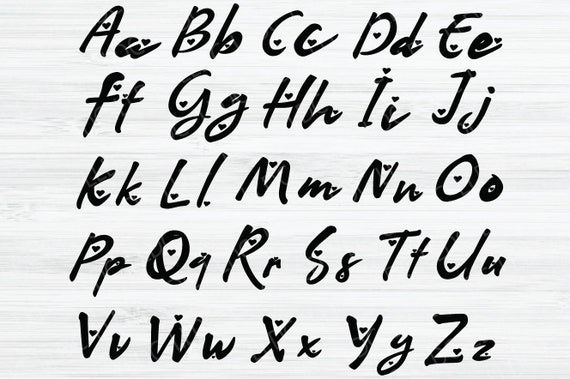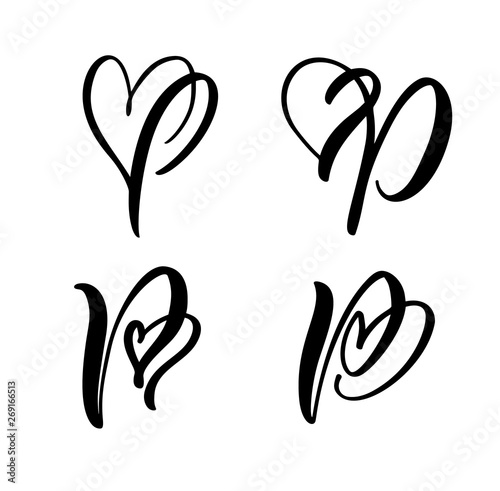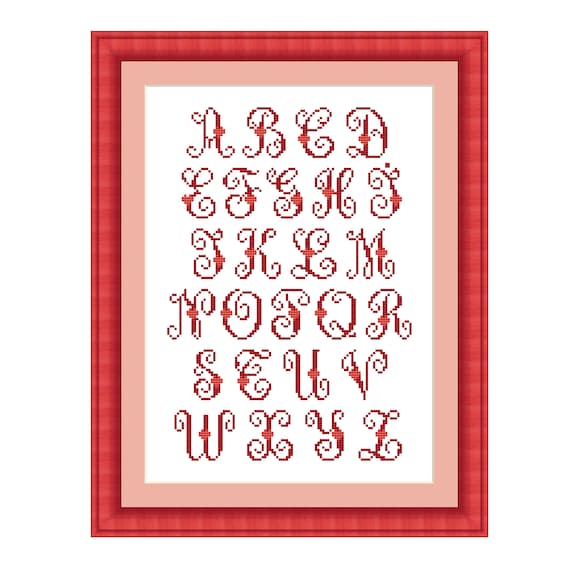
It is full of hearts and glyphs. The alternative characters were divided into several Open Type features such as Swash Stylistic Sets Stylistic Alternates Contextual Alternates.
Calligraphy heart letters font. Bold Stylish Calligraphy by Mistis Fonts. Sophia Ronald is a crème de la crème modern calligraphy font with handwritten sophisticated flows. Beauty Heart Anatasha Calligraphy Font Beauty Heart Anatasha Handwritten Typeface.
The Open Type features can be accessed by using Open Type savvy programs such as Adobe Illustrator Adobe InDesign Adobe Photoshop Corel Draw X version. Short lowercase beginning swash type. It is full of hearts and glyphs.
Calligraphy fonts are widely used in wedding event invitations original logo design religious art films TV etc. Following changes-now you can type all swashes from your keyboard. Sophia Ronald is a crème de la crème modern calligraphy font with handwritten sophisticated flows.
-samantha -victoria -abigail short lowercase ending swash type. Cartoon Comic Groovy Old School Curly Western Eroded Distorted Destroy Horror. Dear Heart is calligraphy script font that is perfect for logos posters signage and more.
Font Heart Love Calligraphy Script Font come with 320 glyphs. Click on over to Creative Market o get this lovely font. Use the following combos.
Its going to work pretty much anywhere online - works almost everywhere - its just textText with special computer letters and symbols kind of like emoji. Sophia Ronald includes a full set of lovely uppercase and lowercase letters multilingual symbols numerals punctuation and. Its best used for logos wedding stationery social media and quotes.
Samantha- victoria- abigail- letter with connecting heart. 1 to 15 of 45 Results. Dear Heart Font is calligraphy script font that is perfect for logos posters signage and more.
It is perfect for branding wedding invites and cards. Bold Stylish Calligraphy by Mistis Fonts. Burgues Script created by Alejandro Paul is a typical font family of calligraphy style.
Font download Wedding font Calligraphy font Heart font Digital font Script font Handwritten font Modern font Cricut font Feminine font Otf. UPDATE 7 JUNE 2020 After receiving multiple feedback about making ligatures for heart alternatives we updated our font. -a hyphenlowercase letter For example.
Test it out in the box above to see how it would look for your next project. Its best used for logos wedding stationery social media and quotes. Lily of the Valley_Personal_Use by dcoxy - Greg Medina Category.
According to the designer the font is an ode to the late 19 th century American calligrapher Louis Madarasz known as the most skillful penman the world has ever known. Sing Song it comes in with alternate characters OpenType feature. Chinese Jpn Arabic Mexican Roman Greek Russian Various.
Affectionately Yours by Mistis Fonts.